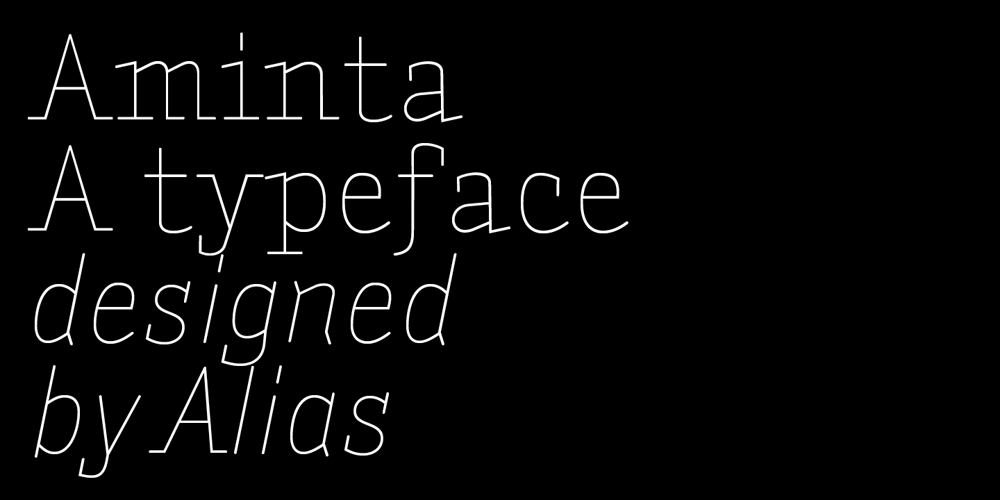
Aminta
Aminta font
Aminta Font Family was designed by Gareth Hague and published by Alias Collection. Aminta contains 10 styles and family package options. Aminta is an eclectic and expressive take on the Courier aesthetic. Aminta mixes the utility aesthetic of Courier, the default computer typeface and subversive piece of non-design graphic designers are presented with in the top left hand corner of Quark documents, and eclectic and expressive letterforms derived from drawing and handwriting.